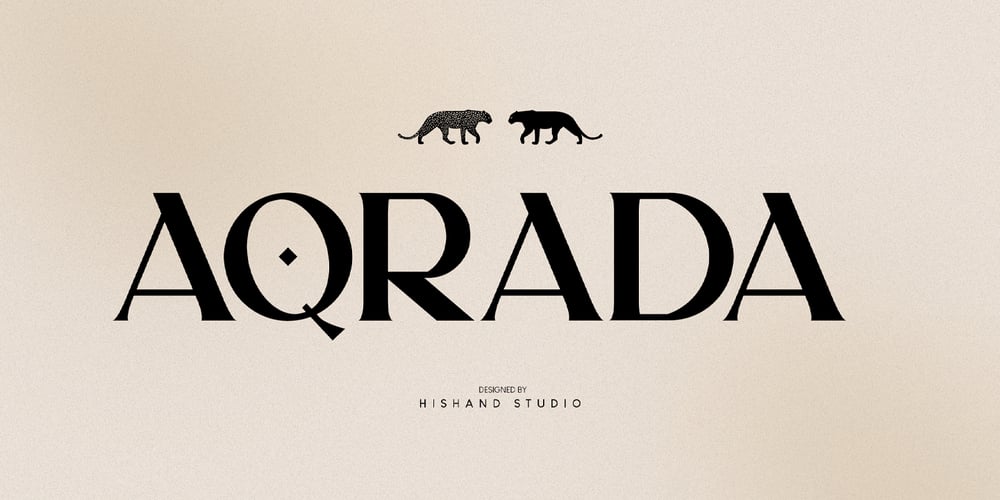
Aqrada Display Font Family was designed by Putu Dody Permana and published by Hishand Studio. Aqrada Display contains 3 styles and family package options. Introducing AQRADA, an elegant display with aesthetic look. Perfect for who needing a touch of elegancy, classy, stylish, beautiful bold type, and modernity for their design.Complete with ligatures alternates regular hollow icon kerning multilingual support